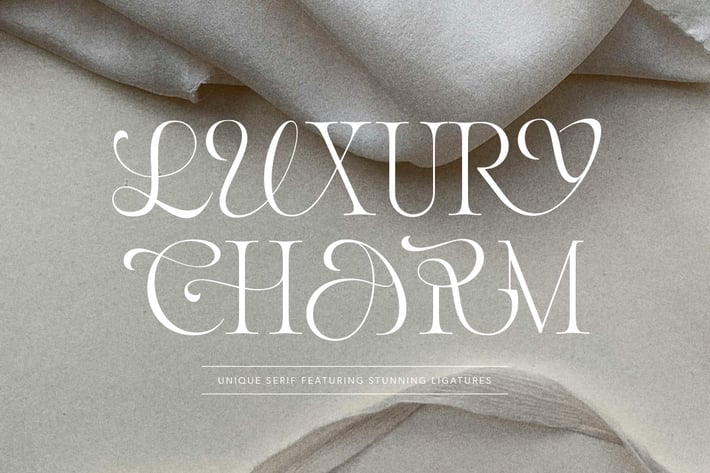
Luxury Charm - Modern Ligature Font
Luxury Charm is a classic serif font with stylish ligatures. With a classic all-caps serif as uppercase letters and stylish modern serif as lowercase letters. You can use the lowercase at the beginning of a word or in the middle for a stylish and modern look. The beautiful ligatures, which uniquely combine two characters between lowercase and uppercase, add a touch of luxury and delicacy to your project. This versatile font is perfect for logos, branding, quotes, and even wedding invitations. Plus, it supports multiple languages!